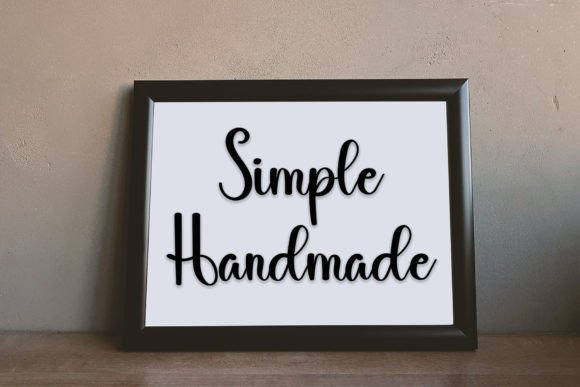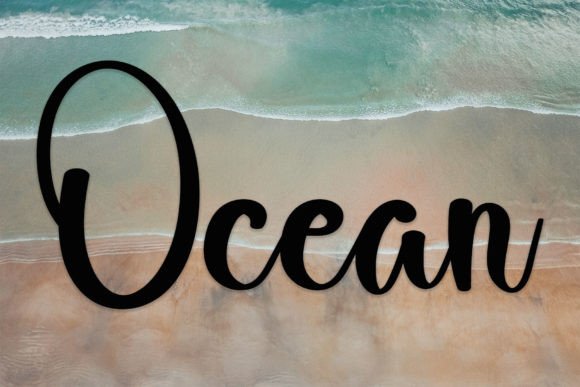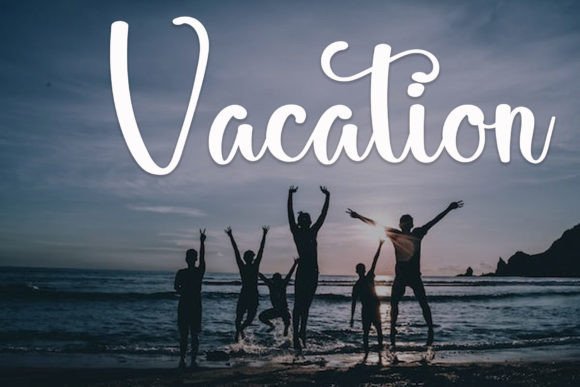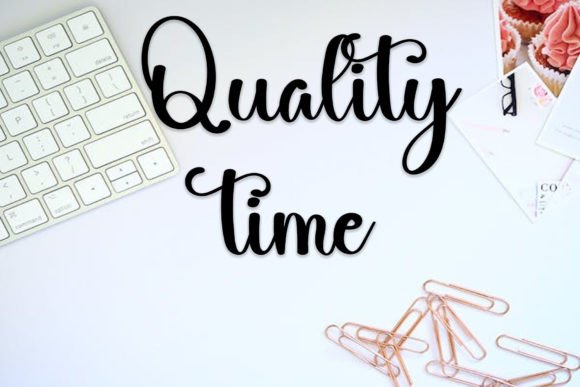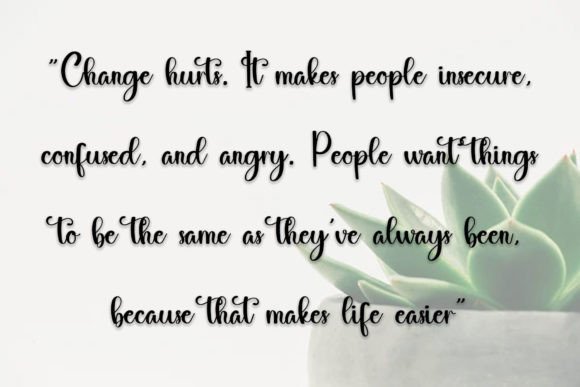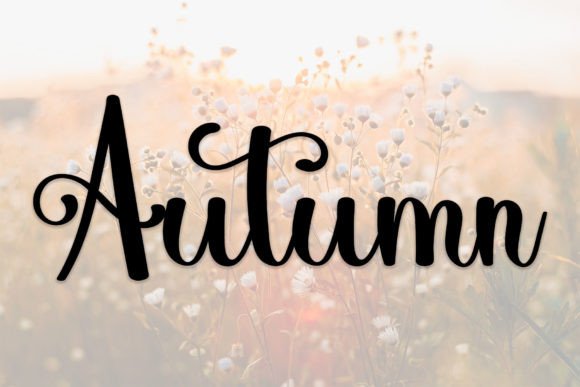
Discover the Timeless Charm of Acoustic Font
Do you remember that moment when you stumbled upon the perfect font to elevate your design? It’s as if the entire project came alive, and you knew exactly what you wanted to create. For designers, finding the right font can be a game-changer, and today, we’re excited to introduce you to Acoustic Font – a beautiful, elegant handwritten font that’s sure to capture your heart.
With its distinct and timeless style, Acoustic Font is perfect for adding a touch of sophistication to your favorite projects. Whether you’re working on a branding campaign, a wedding invitation, or a personal blog, this font is sure to impress. Its versatility and unique character make it a valuable asset for designers who want to create stunning designs that stand out from the crowd.
Key Features of Acoustic Font
Acoustic Font Review
At first glance, the Acoustic Font is an intriguing choice for designers. Its unique blend of modern and classic elements can add a touch of sophistication to any project. ✨ The font’s high contrast between thick and thin lines gives it a sense of depth, making it perfect for headings and titles. ✨ Additionally, its legibility is top-notch, ensuring that your message is conveyed clearly to your audience.
However, there are a few limitations that may hold you back from using the Acoustic Font. ⚠️ Firstly, its overall design may not be suitable for body text, as it can be overwhelming for large blocks of text. ⚠️ Furthermore, the font’s limited character set may not be enough for complex designs or those requiring special characters.
Here are some specific features to keep in mind:
- ✨ High contrast between thick and thin lines for added depth
- ✨ Excellent legibility for clear communication
- ⚠️ May not be suitable for body text due to its bold design
- ⚠️ Limited character set may not be enough for complex designs
Overall, the Acoustic Font is a great choice for designers who want to add a touch of elegance to their projects. While it may not be suitable for all types of designs, its unique features make it a great addition to any font collection.
For the best results, use the Acoustic Font in combination with bold or italic styles to create visual interest.
Limit the amount of text to avoid overwhelming the design.
Use the font in conjunction with other design elements to create a cohesive look.
The Acoustic Font is ideal for:
Music-related designs, such as album artwork or concert posters.
Creative typography projects, like typographic art or experimental text arrangements.
Branding and marketing materials, such as logos or promotional materials.
Alternatives to Acoustic Font for Designers
Playfair Display is an elegant, high-end serif font that exudes sophistication and luxury. It’s ideal for use in high-end branding, advertising, and editorial design where a touch of sophistication is required. Compared to Acoustic Font, Playfair Display has a more refined and polished feel, making it suitable for high-end applications.
Great Vibes is a modern, cursive script font that’s perfect for creating a friendly and approachable atmosphere. It’s great for use in branding, advertising, and packaging design where a human touch is required. Unlike Acoustic Font, Great Vibes has a more playful and relaxed feel, making it suitable for casual and creative applications.
Can I customize an Acoustic Font?
Yes, Acoustic Fonts can be customized to some extent. However, the level of customization may be limited due to the unique acoustic patterns that make up the font. Some customization options may include adjusting the font size, color, and spacing, but significant changes to the font’s design may not be possible. It’s best to consult with a designer or font expert to determine the level of customization possible for a specific Acoustic Font.